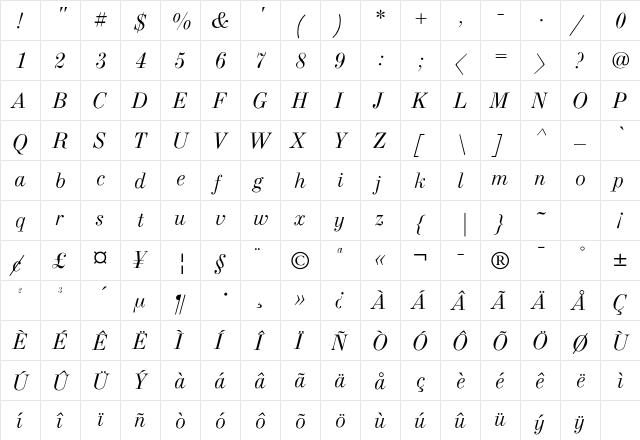
Dioxipe Italic
Design Context for Dioxipe Typeface
Dioxipe is a composed and adaptable typeface that performs quietly and consistently across a wide range of design contexts. Its italic angle brings a sense of urgency and motion to the letterforms.
Pro Tip: Try Dioxipe for annotation and caption copy alongside an upright companion — the contrast in angle creates a dynamic but ordered typographic system.